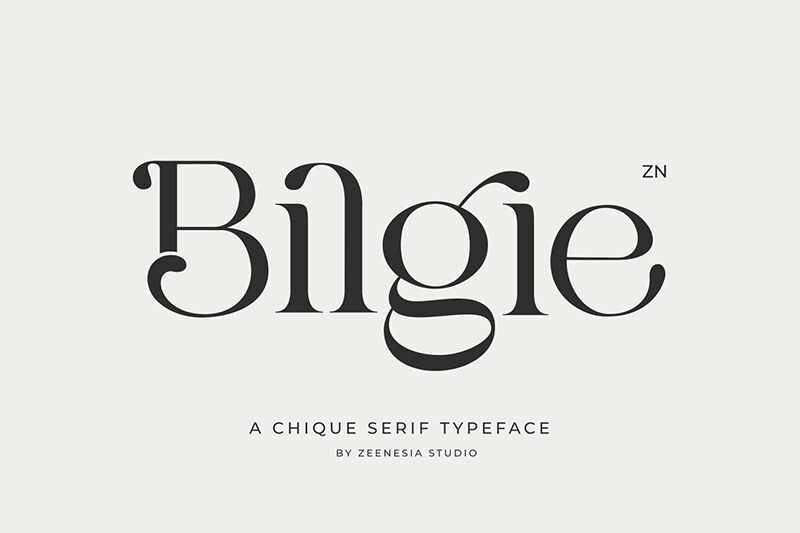
Bilgie font by Zeenesia Studio is a free serif typeface with a lush, sculpted rhythm that feels both editorial and indulgent. Thick, inky stems flow into hairline curves, while the sweeping lower shapes give each word a graceful, almost calligraphic sway. The result is a serif that feels luxurious without being fussy, with smooth curves and sharp cuts that catch the eye in a single glance.
Using Bilgie, text feels like it was carefully brushed onto the page—bold, confident, and a little dramatic. This free font shines on beauty or fashion branding, packaging, magazine covers, book titles, posters, wedding stationery, and high-end social graphics. Set it large to let the curvy details breathe, and pair Bilgie with a clean geometric sans for supporting text to keep layouts modern and balanced.